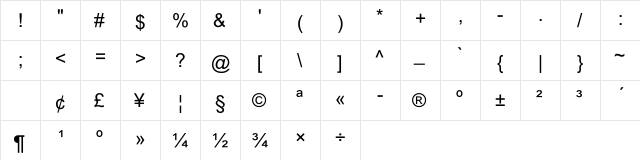
Aleem Urdu Unicode Regular
| Designer | Amanat Ali Goher |
Design Context for Aleem Urdu Unicode Typeface
Aleem Urdu Unicode brings the precise, column-aligned rhythm of monospaced typography to designs that value technical clarity and systematic order.
Pro Tip: Use Aleem Urdu Unicode with slightly increased line-height for extended reading — fixed-width spacing can feel dense in longer passages without extra breathing room.